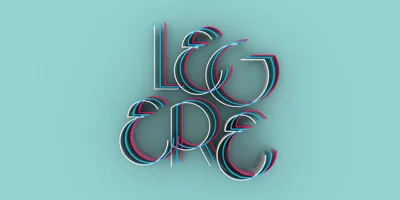
Legere Font
Legere Font is perfect for lightweight branding, minimal design projects, reading-focused publications, clean editorial layouts, contemporary signage, accessible communications, modern corporate materials, and readable display typography.
What makes Legere Font exciting is its light readable character that embodies reading comfort and typographic clarity through optimized letterforms and legibility appeal. This refined typeface features reader-friendly construction, clarity details, and accessible personality that captures the essence of comfortable reading and typographic excellence, making it ideal for projects seeking to communicate readability, accessibility, and reading comfort with genuine legibility appeal and typographic sophistication.
The Legere Font family includes Thin, Light, Regular, Medium, and Bold weights, each maintaining the characteristic reading comfort and legibility appeal that define this distinctive typeface's accessible personality and typographic sophistication.
Legere Font provides access to a typeface that perfectly captures the essence of reading comfort and typographic accessibility. This readable font brings authentic legibility aesthetics to contemporary projects, making it essential for publishers, educational organizations, and accessibility-focused brands targeting audiences who prioritize reading comfort and clear communication. The font's reader-friendly construction and clarity details ensure immediate recognition of accessibility and comfort while its distinctive character creates comfortable connections among readers seeking optimal reading experiences. Whether designing educational publications, accessible communication materials, or reader-focused brand projects, this font delivers the legibility authenticity and reading sophistication that literacy-focused audiences expect. Its readability foundation and accessibility symbolism make it indispensable for projects celebrating reading culture, educational accessibility, and the fundamental importance of clear communication, ensuring messages resonate with audiences who value the reading comfort, typographic clarity, and accessible design that define authentic educational excellence and reader-centered communication across diverse publishing and educational applications.